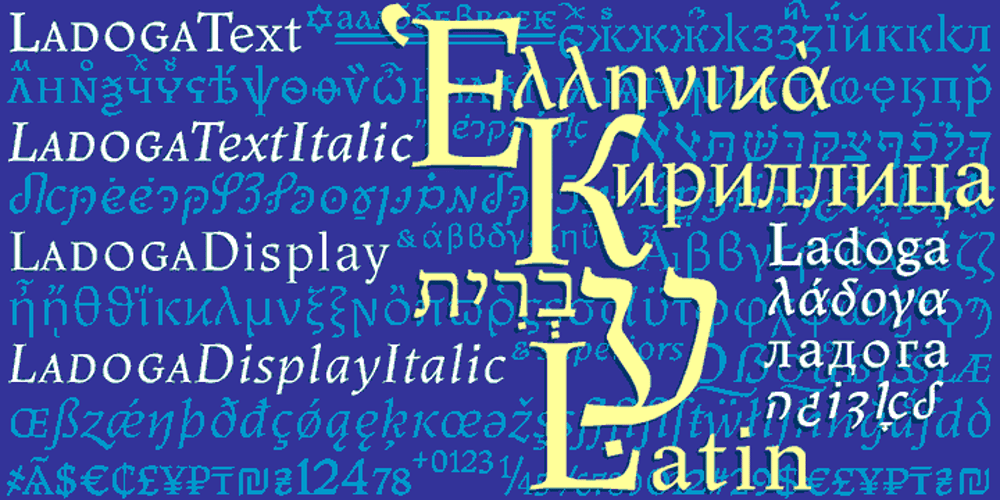
Ladoga Font Family was designed by Viktor Kharyk and published by ParaType. Ladoga contains 4 styles and family package options. Ladoga — one of the most beautiful Russian designs from the soviet period. The type family was developed in Polygraphmash in 1968 by Anatoly Shchukin on the base of his own lettering for book covers and titles. It was one of the first attempts in Cyrillic typography to create text face in a style of renaissance antiqua. Stylization to broad pen calligraphy resembles early forms of Latin types that were based on handwritten humanistic minuscule. Unique in its character set digital version of Ladoga was designed by Viktor Kharik on the base of artworks of Shchukin for ParaType. The family consists of roman and italic styles in text and display versions. Character set includes characters of original shapes as well as more modern alternatives. Besides there are a set of additional characters, old style figures and small caps. The fonts cover all modern languages based on Latin and Cyrillic scripts, Greek alphabet (including polytonic extension), Hebrew and historical Cyrillic letters. Ladoga is gorgeous in display sizes and pretty readable in texts. It’s well suitable for fiction literature, historical books, art criticism, religious and philologist works. It will be extreme helpful for multilingual issues and for inclusions into body text historical passages in original orthography. The family was released in 2010.